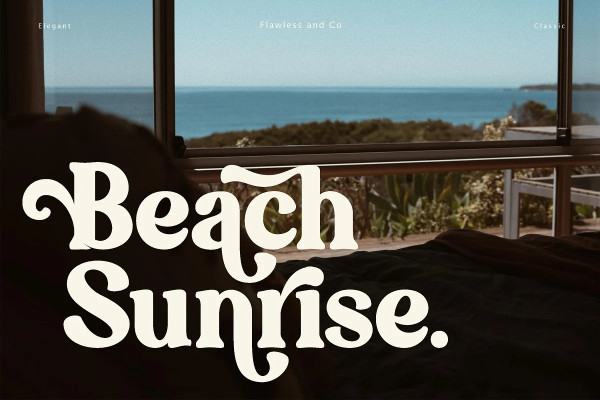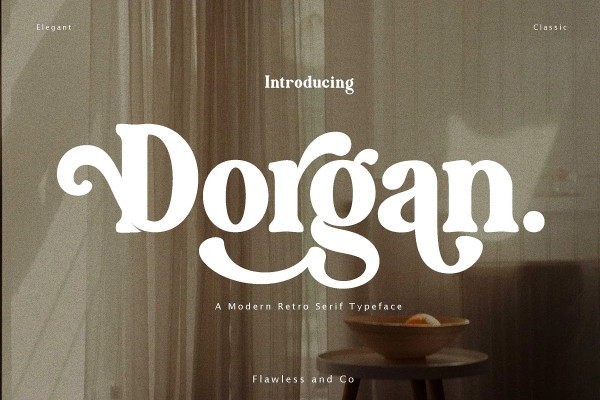
DORGAN TYPEFACE
Dorgan Typeface – Modern Boho Retro Font, our new “Dorgan” Modern Font with Elegant Style is perfect for branding, logos, invitation, master heads, and more.